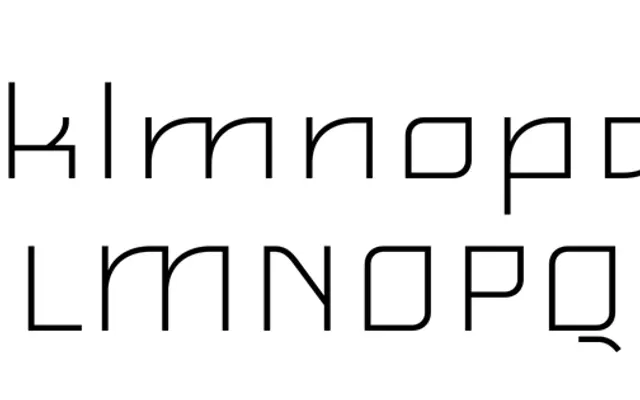
Feisar
Bold Monday · Paul van der Laan · 2000
An outline typeface evolved from a 12-pixel bitmap UI font, blending 1970s sci-fi, 1980s gaming and 1990s techno aesthetics into a recognisable display face.
Originally designed as a pixel-grid bitmap font for a game interface, Feisar has been redrawn as a scalable outline family with five weights from ExtraLight to Bold. Paul van der Laan reinterpreted the pixel-grid constraints rather than simply tracing them, which gives the face its particular legibility at display sizes despite its retro-techno character. Best suited to titles, gaming interfaces and projects that need a deliberately period-coded digital flavour.
A display typeface derived from a 12-pixel bitmap UI font, drawing on science fiction, video gaming and techno culture aesthetics — firmly in the display category with a techno/pixel subcategory.